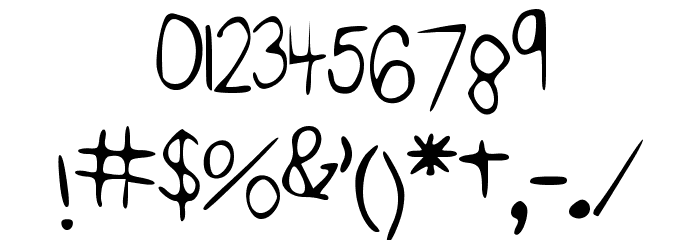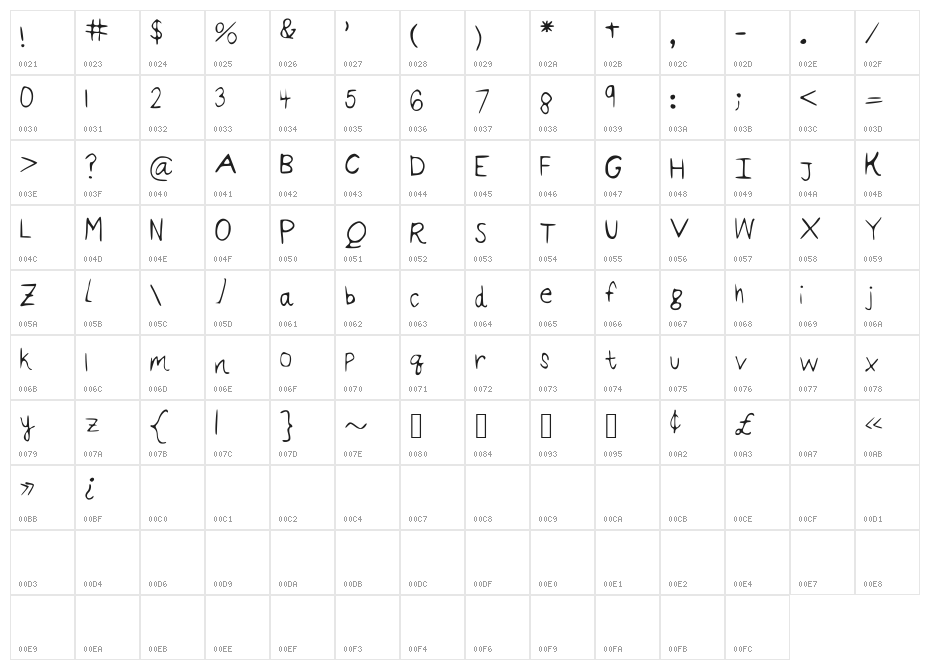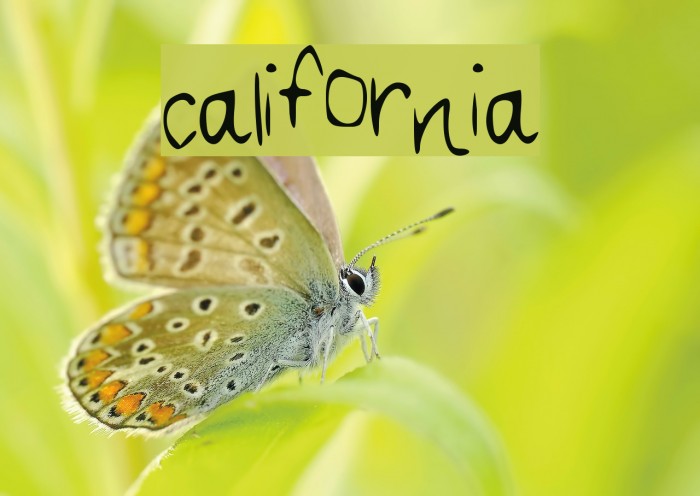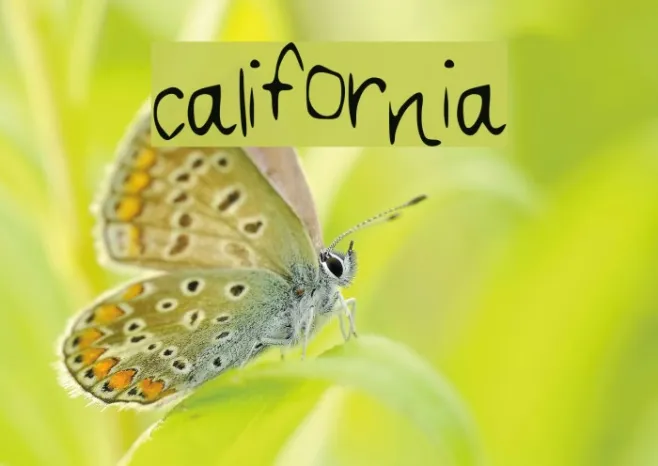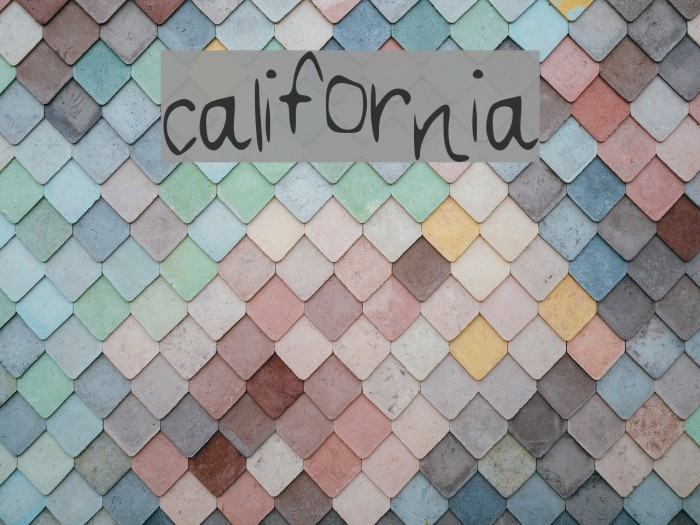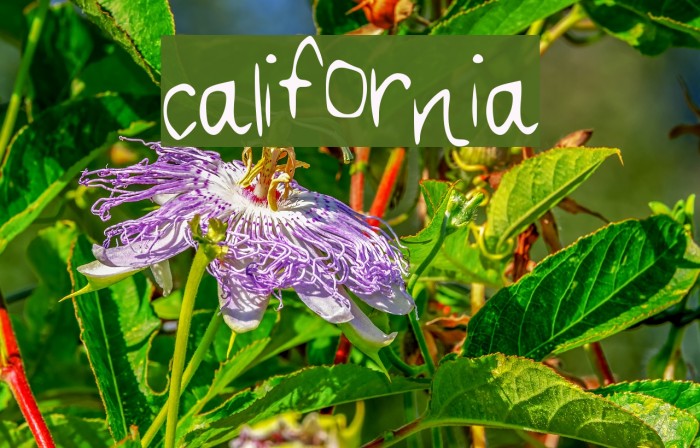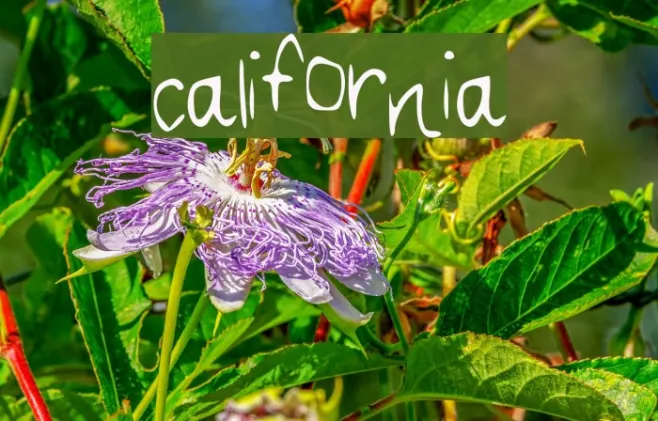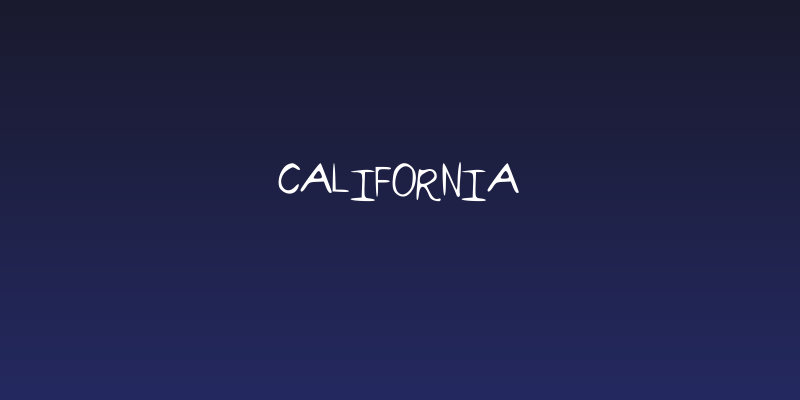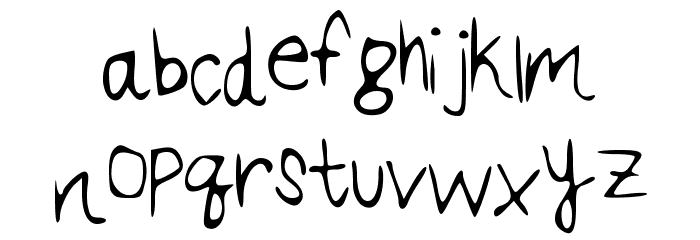
california Font
california Description
This font features a playful and casual handwritten style, characterized by its irregular and slightly whimsical letterforms. The uppercase letters are bold and slightly uneven, giving a sense of spontaneity and creativity. The lowercase letters maintain this playful aesthetic, with some characters having unique flourishes and loops. The numbers and special characters are consistent with the overall style, adding to the font's charm. This font exudes a friendly and approachable vibe, making it suitable for informal and creative projects.
| Proposed Projects | Ideal for greeting cards, children's books, casual branding, and creative social media graphics. |